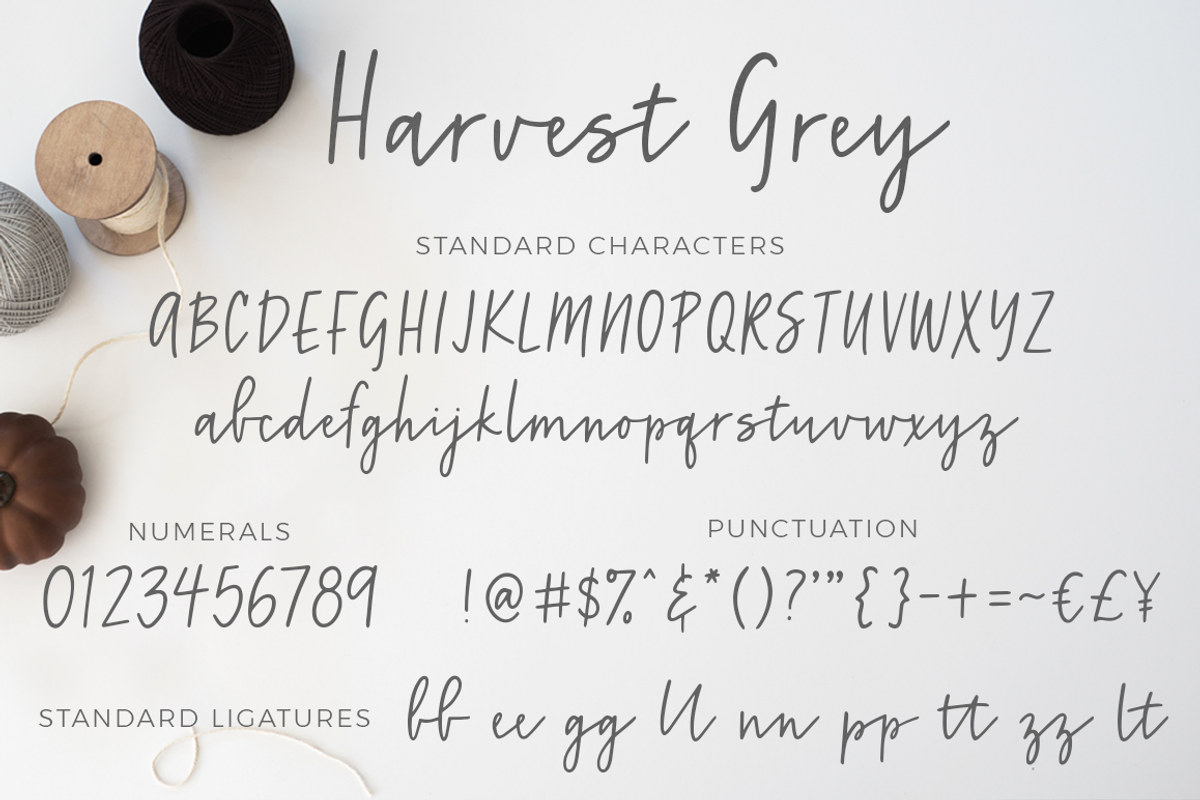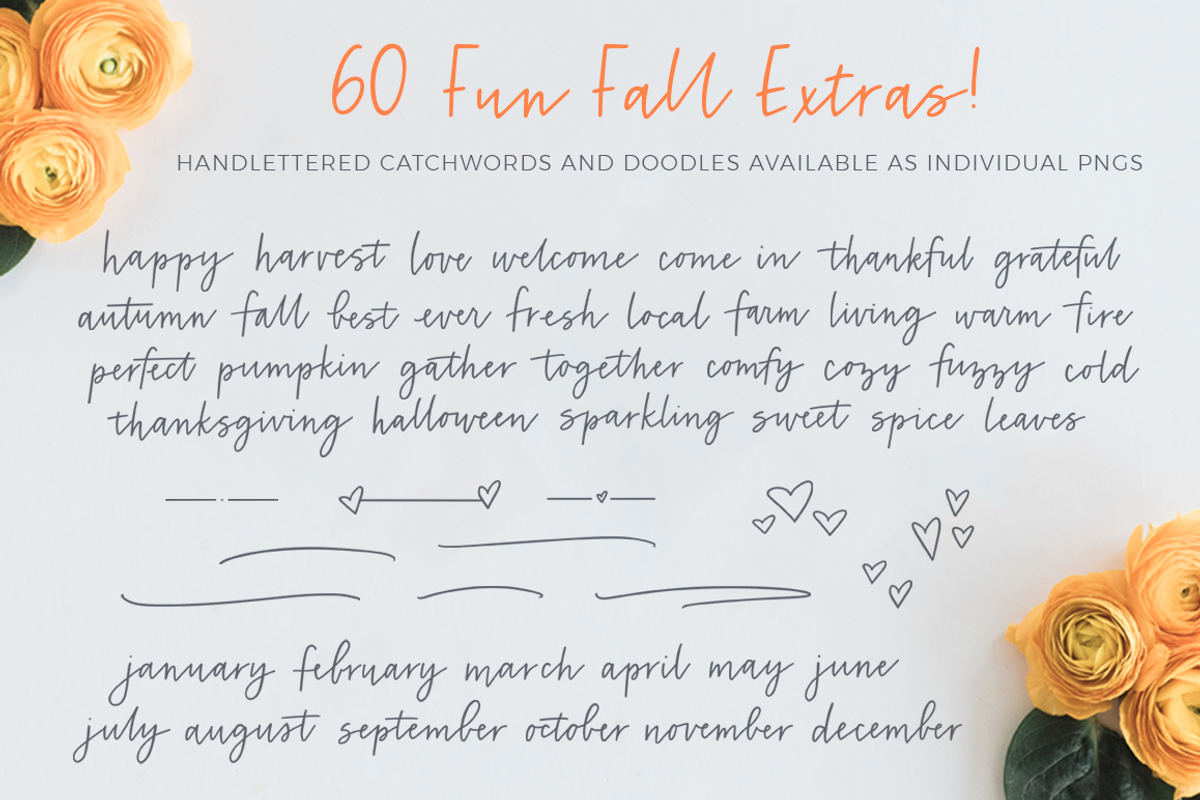
Harvest Grey
Introducing, Harvest Grey! A warm and cozy handwritten script inspired by everyone’s favorite time of year – Fall! Perfect for adding a casual and natural feel to anything, from seasonal projects to handwritten quotes, invitations, logos, social media and much more.
1. Harvest Grey Script Font (OTF) – Contains upper and lowercase characters, numeric characters, and an extensive range of punctuation. Also includes 9 natural looking double letter ligatures.
2. Harvest Grey Bonus PNG Files – Contains 60 bonus handlettered catchwords and doodles available as individual transparent png files. A great way to create an organic look in any of your projects!